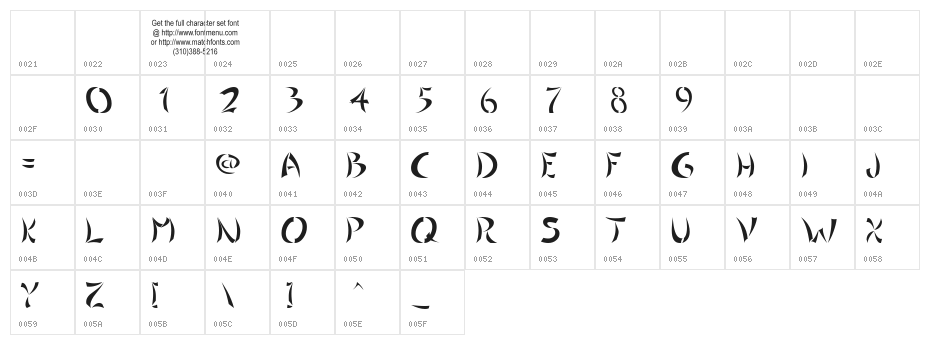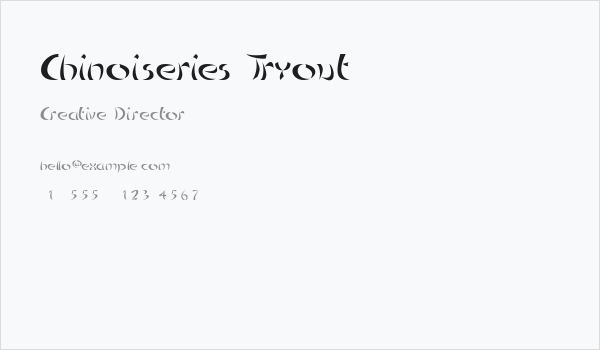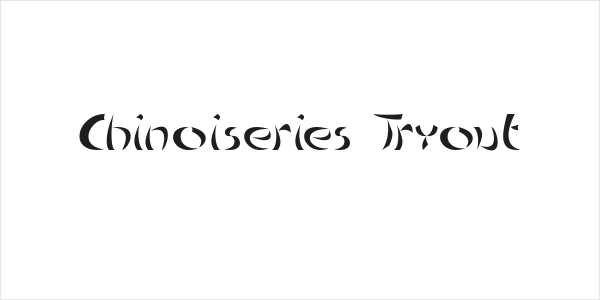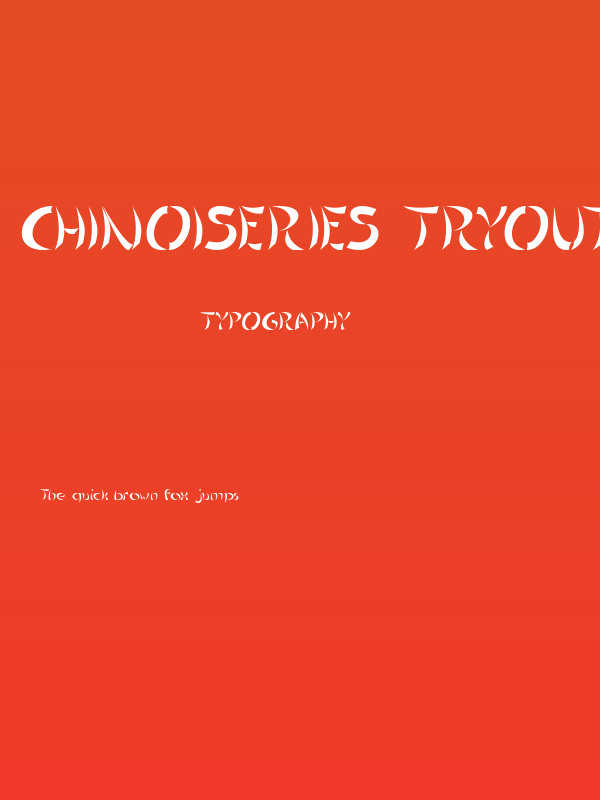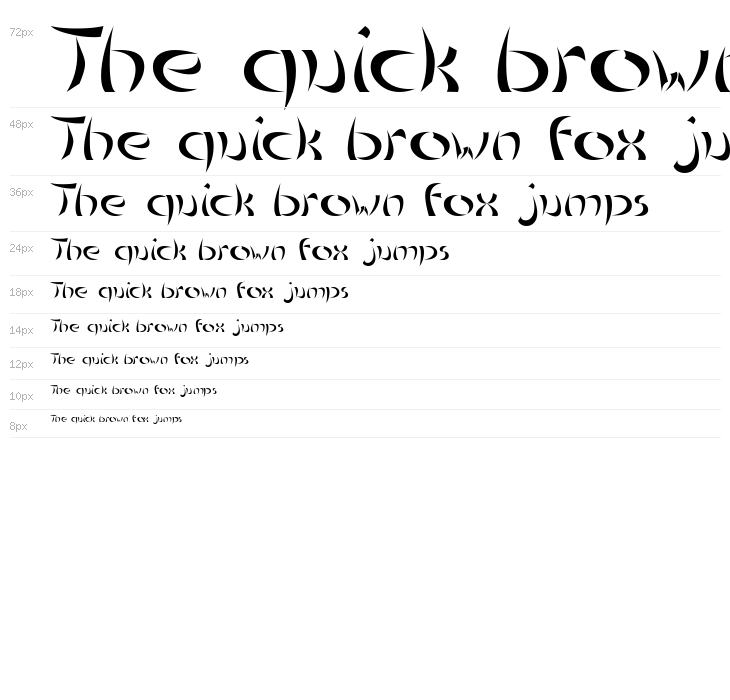
Chinoiseries Tryout Font
Chinoiseries Tryout Description
This font features a unique and artistic design inspired by traditional Asian aesthetics. The characters have a bold, sweeping style with sharp, angular cuts that create a dynamic and exotic appearance. The strokes are thick and dramatic, giving the font a strong presence. Each letter is crafted with a sense of movement and flow, reminiscent of calligraphic brush strokes. The numbers and special characters follow the same stylistic approach, ensuring consistency across the entire character set. This font is ideal for projects that require a touch of cultural flair and artistic expression.